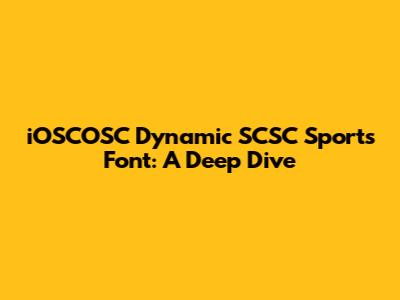
- Versatility: Dynamic fonts offer unparalleled versatility. With the ability to adjust various parameters like weight, width, and slant, you can achieve a wide range of looks with a single font file. This is especially useful in sports design where you might need to adapt the font to different contexts, from small text on a jersey to large headlines on a poster. Instead of juggling multiple font files, you can simply tweak the settings of the dynamic font to get the perfect look.
- Performance: Dynamic fonts can also improve performance. Because a single font file can replace multiple static font files, they can reduce the overall file size of your project. This is especially important for web and mobile applications, where every byte counts. Smaller file sizes translate to faster loading times and a smoother user experience. In the fast-paced world of sports, you need designs that are as efficient as possible, and dynamic fonts help you achieve that.
- Visual Impact: iOSCOSC Dynamic SCSC Sports fonts are designed to make a statement. They're bold, energetic, and eye-catching. They can instantly grab the viewer's attention and convey the excitement of the sport. Whether you're designing a website, a poster, or a social media graphic, these fonts can help you create a visual impact that resonates with your audience. The careful design of these fonts ensures they align with the visual language of sports, enhancing the overall aesthetic appeal.
- Modernity: Using dynamic fonts demonstrates that you're up-to-date with the latest design trends. Dynamic fonts are a relatively new technology, and using them shows that you're willing to embrace innovation and push the boundaries of design. This can help you stand out from the competition and position yourself as a forward-thinking designer. Embracing such innovations reflects a modern and adaptive approach to design, aligning with the ever-evolving digital landscape.
- Brand Identity: If you're working on a sports-related brand, iOSCOSC Dynamic SCSC Sports fonts can help you create a strong and consistent brand identity. By choosing a font that reflects the personality of the brand, you can create a visual language that resonates with your target audience. This can help you build brand recognition and loyalty. The unique characteristics of these fonts can significantly contribute to distinguishing a brand within the competitive sports market.
- Custom Font Design: If you can't find exactly what you're looking for, consider hiring a custom font designer. They can create a unique font tailored to your specific needs and brand identity. This option offers maximum control over the font's characteristics and ensures it perfectly aligns with your vision. While more expensive, it guarantees a unique and tailored result.
- Legibility is Key: No matter how cool a font looks, it's useless if it's not legible. Make sure the font is easy to read at various sizes and on different backgrounds. Pay attention to the letter spacing and kerning to ensure optimal readability. In sports design, clarity is paramount, especially in dynamic environments.
- Consider the Context: Think about where the font will be used. Is it for a website, a poster, or a jersey? The context will influence your choice of font and how you use it. A font that looks great on a poster might not be suitable for a website. Adapting the font to the specific medium ensures optimal impact and readability.
- Don't Overdo It: Using too many different fonts can create a cluttered and confusing design. Stick to a maximum of two or three fonts per project. Choose fonts that complement each other and create a visual hierarchy. A balanced approach enhances the design's clarity and professionalism.
- Experiment with Variation: Take advantage of the dynamic nature of the font. Experiment with different weights, widths, and slants to see what works best for your design. Don't be afraid to push the boundaries and create something unique. Exploring different variations allows for creative freedom and personalized design solutions.